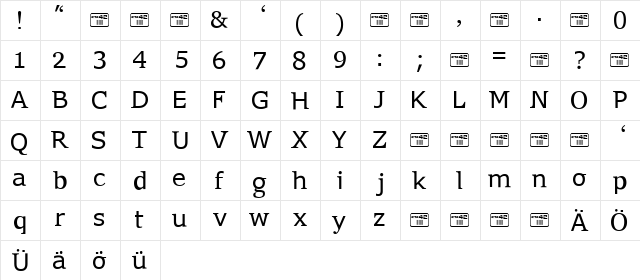
Fusion Demo Regular
| Designer | area42 - Mediendesign |
Design Context for Fusion Demo Typeface
Fusion Demo offers clean, dependable letterforms without strong stylistic allegiance, making it a practical choice for designers who need flexibility.